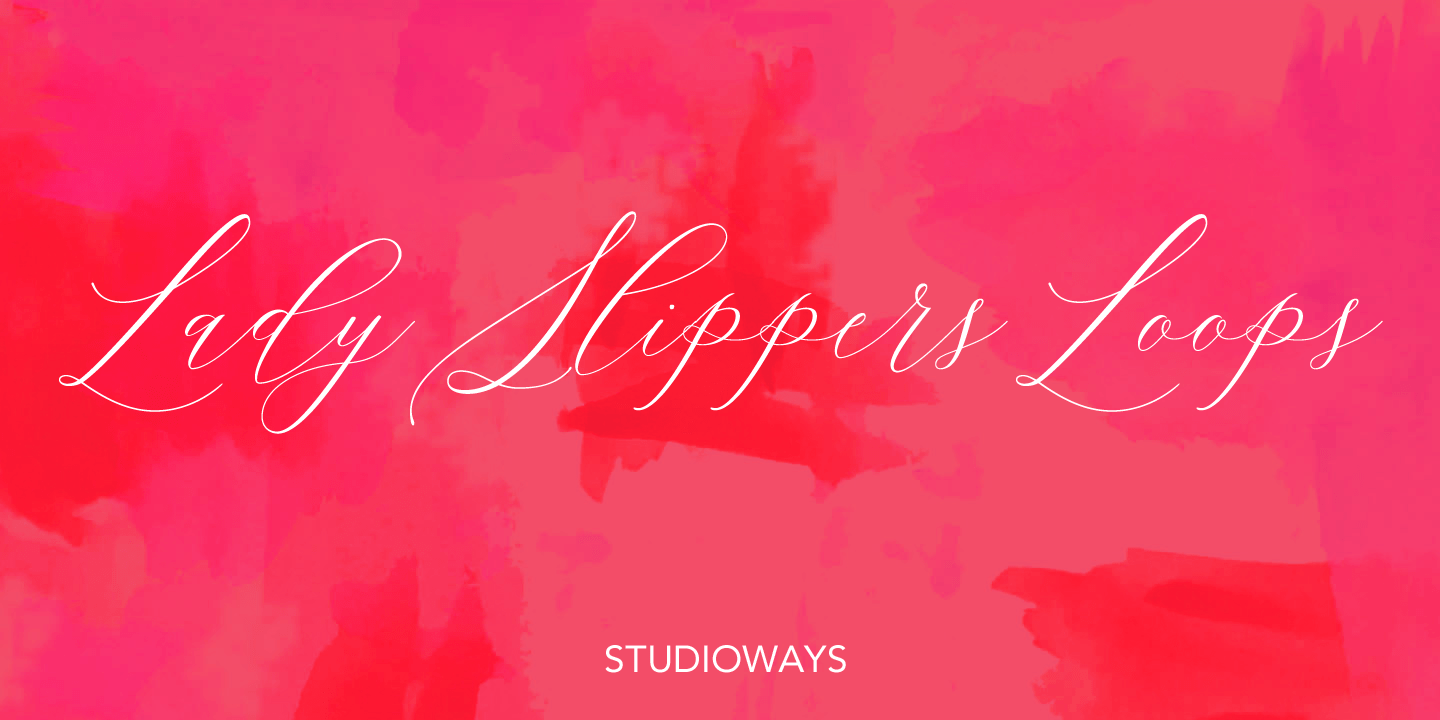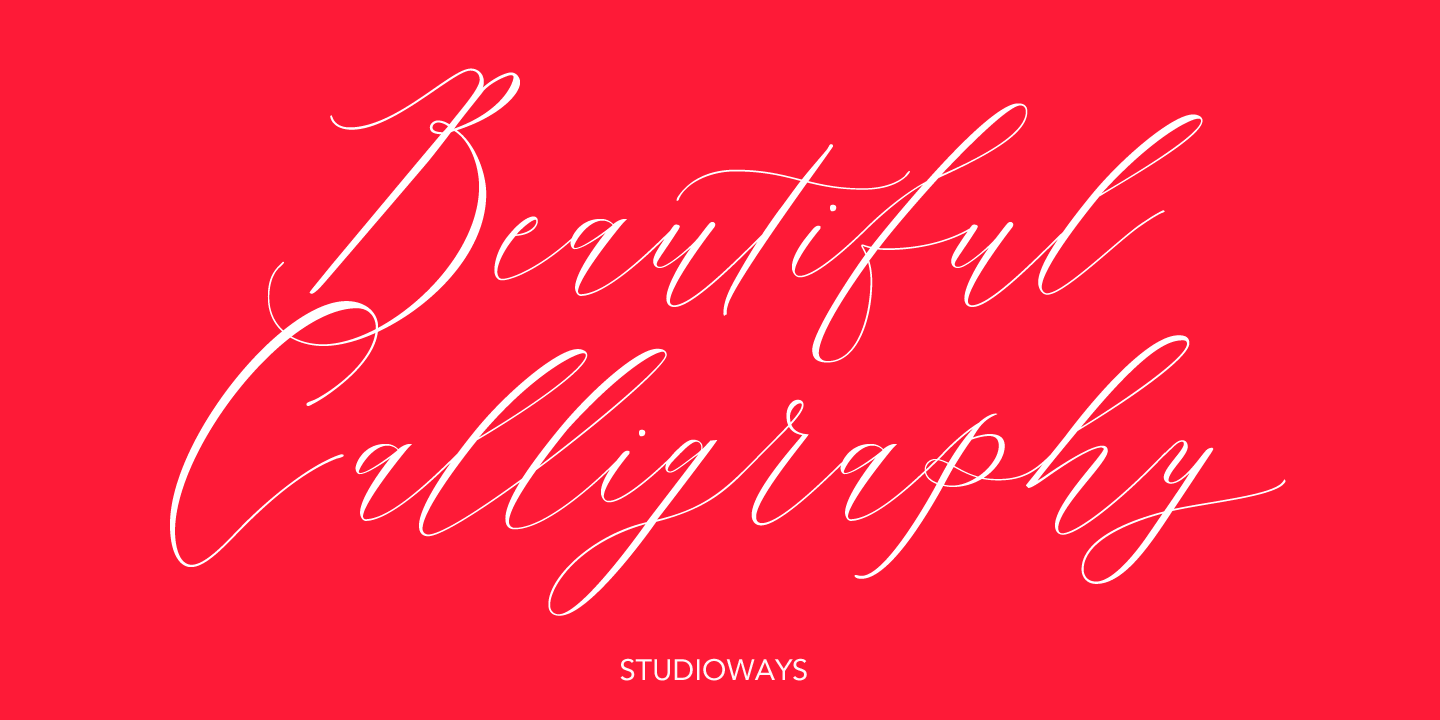
Lady Slippers Loops
Font Style by Studioways
The Lady Slippers family includes 3 toned down versions and they are Lady Slippers Basic, Lady Slippers Loops, and Lady Slippers Align. Each one is still a beautiful and delicate handwritten script typeface. These three versions are meant for users who don't require all of OpenType goodies. In Lady Slippers Loops, Eliza has redrawn the ascenders and descenders with gorgeous wide open loops. This font supports some basic OT features, like fractions, superiors, and ordinals.